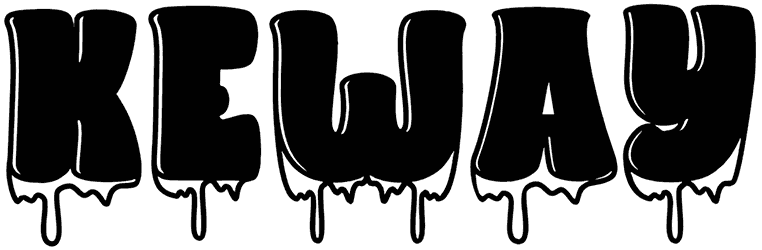
Hollows Font
To design satisfying graphic content for some special occasions like Christmas, you need to take advantage of a Halloween theme font like Hollows that comes with a magical style and leads to a sense of dynamic, fun, vivacity, and whimsical. Although lowercase letters aren’t included in this Halloween font, it can take your greeting cards, posters, banners, brochures, and gift cards to the next step.
Designed by: Ardyana Types